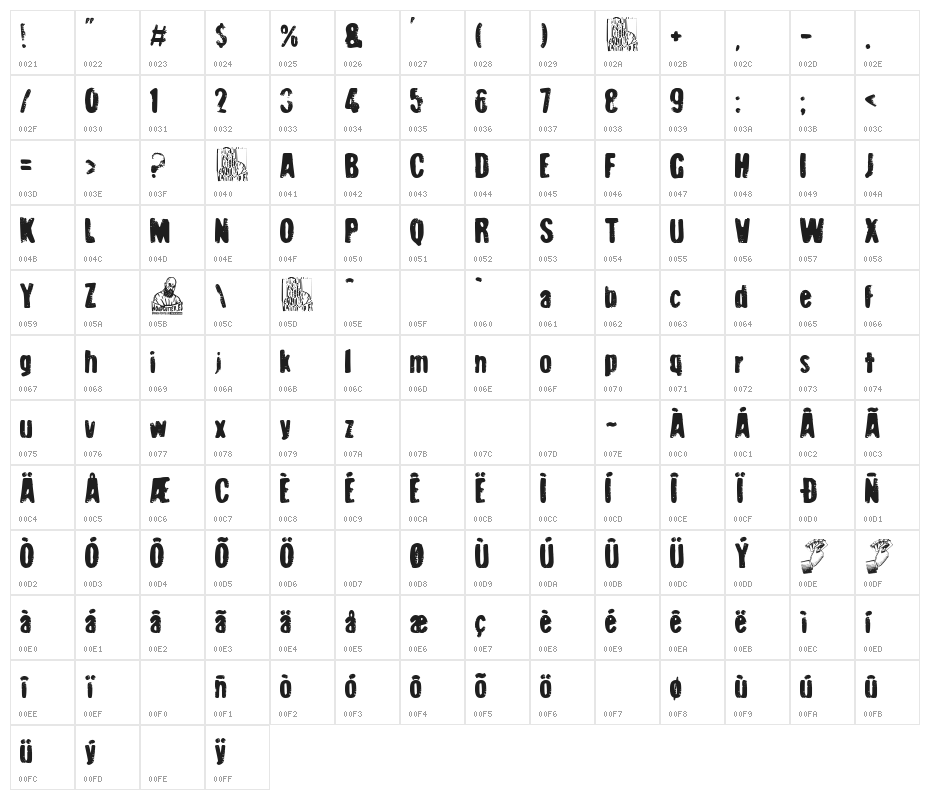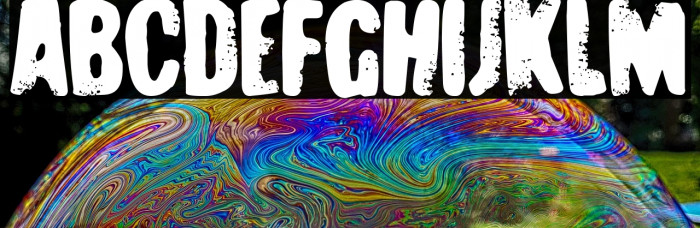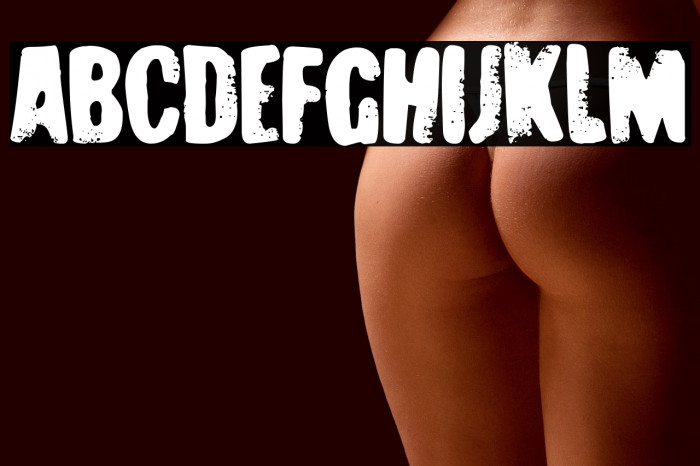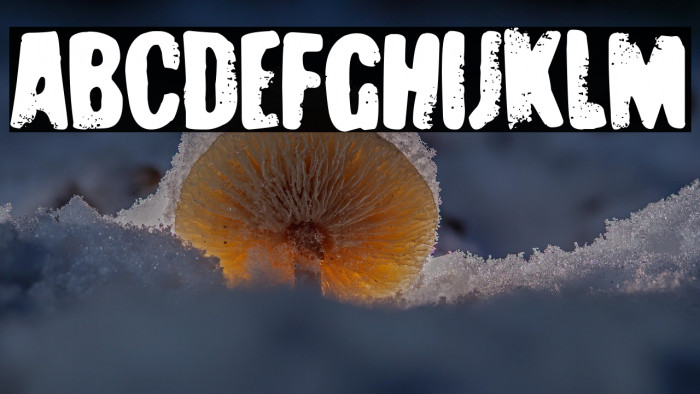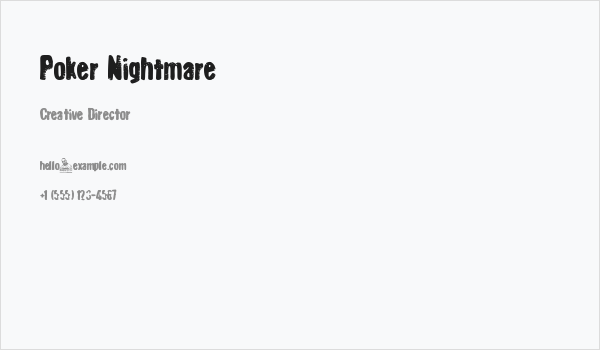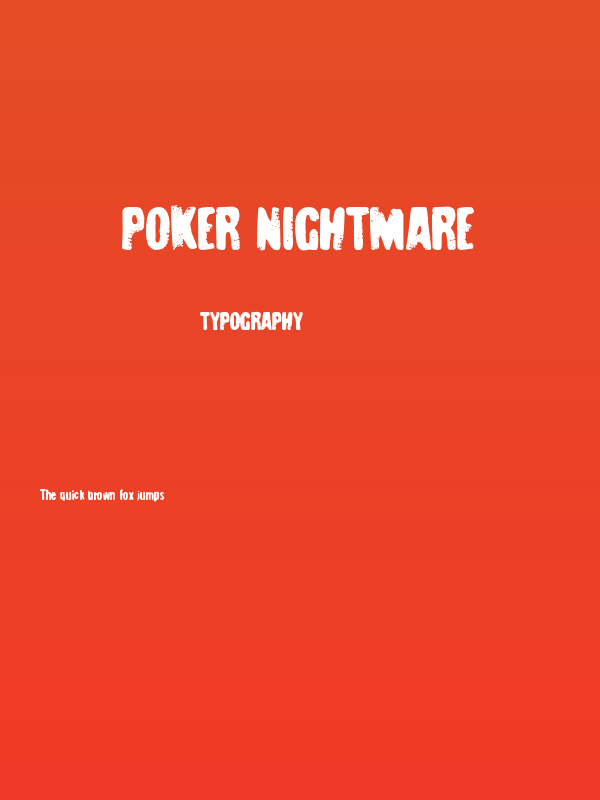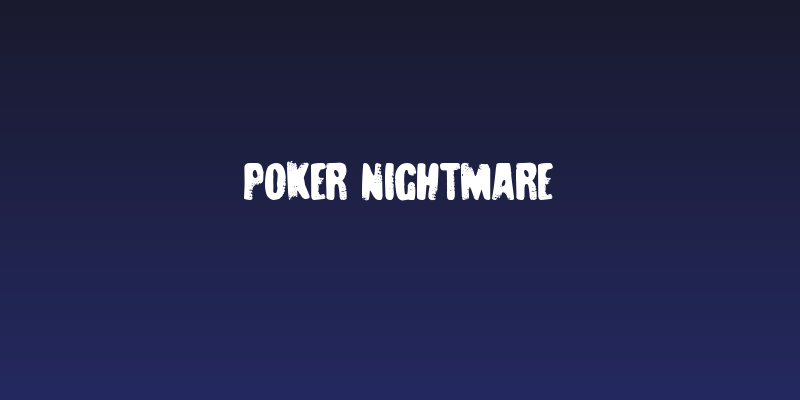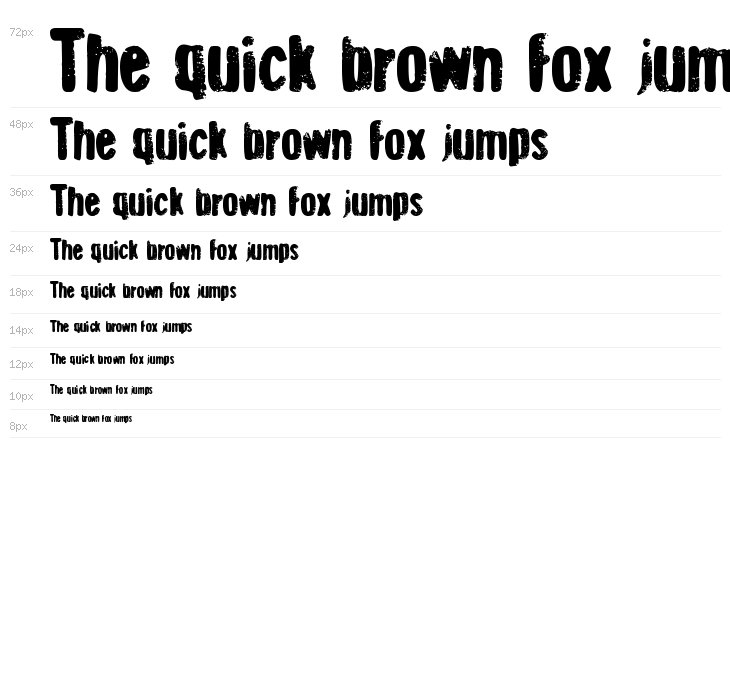
Poker Nightmare Font
Poker Nightmare Description
This font features a bold, distressed style with a textured appearance that gives it a rugged and edgy look. The uppercase and lowercase letters are consistent in their boldness, with irregular edges that create a sense of movement and dynamism. The numbers and special characters follow the same distressed pattern, adding to the overall cohesive design. This font is ideal for projects that require a strong, impactful visual presence, such as posters, album covers, or branding for edgy or alternative products. Its unique style makes it stand out, ensuring that any text set in this font will capture attention.
| Proposed Projects | Ideal for posters, album covers, edgy branding, and alternative product designs. |